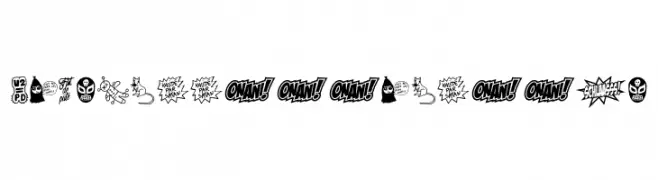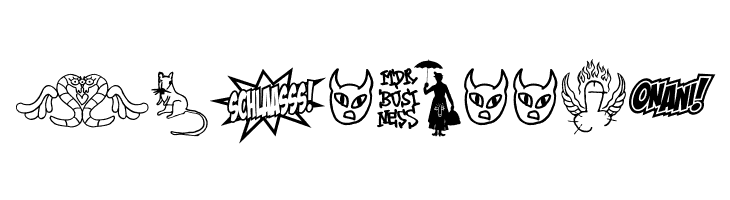
A whimsical and eclectic dingbat collection with comic and pop culture motifs.
A playful, hand-drawn dingbat font with diverse cartoon icons and comic elements.